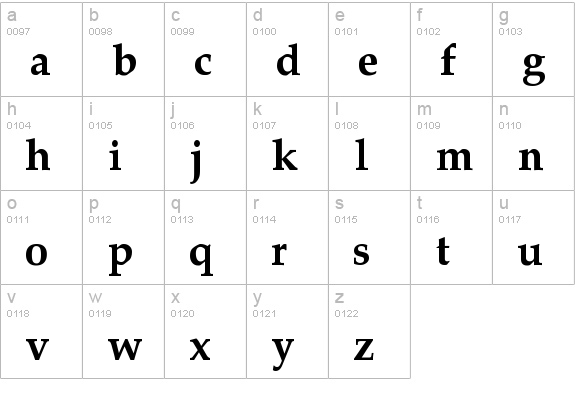
Palladia Bold is a strong, high-contrast variant in the Palladia typeface family \xE2\x80\x94 well suited to headlines, attention-grabbing titles, and strong calls-to-action.
Palladia Bold is a stunning and versatile font that exudes elegance and sophistication with its bold and impactful design. With its clean and crisp lines, this font commands attention and adds a touch of professionalism to any project. This captivating font is perfect for a wide range of applications, from branding and logo design to headlines and titles. Its bold and strong presence makes it ideal for making a statement and leaving a lasting impression. With Palladia Bold, you can effortlessly elevate your designs to a whole new level. Whether you're creating eye-catching advertisements, designing sleek and modern websites, or crafting beautiful packaging, this font is sure to make your work stand out. One of the best features of Palladia Bold is that it is freely available to download at FontsMarket.com. This means that you can access this remarkable font without any hassle or cost. It's a fantastic opportunity to enhance your design projects without breaking the bank. So why wait? Download Palladia Bold today and unleash your creativity. With its timeless appeal and remarkable versatility, this font is sure to become a valuable asset in your design toolkit. Don't miss out on the chance to transform your projects with this extraordinary font.